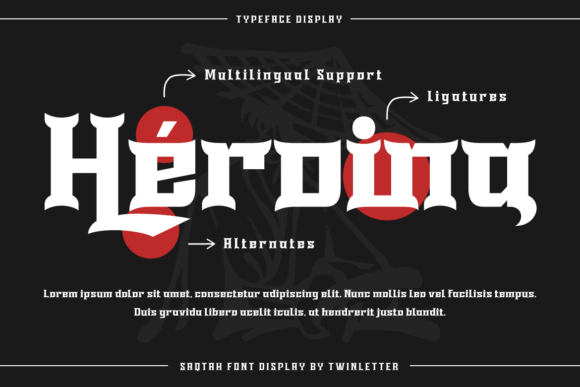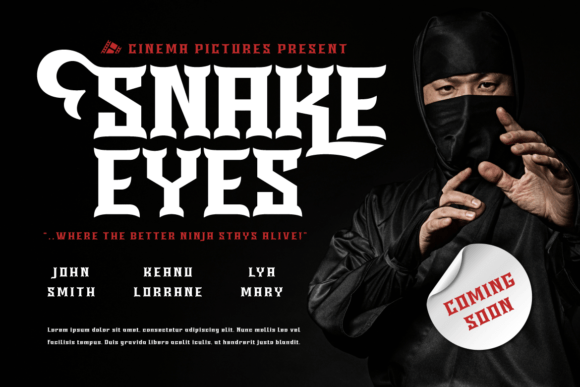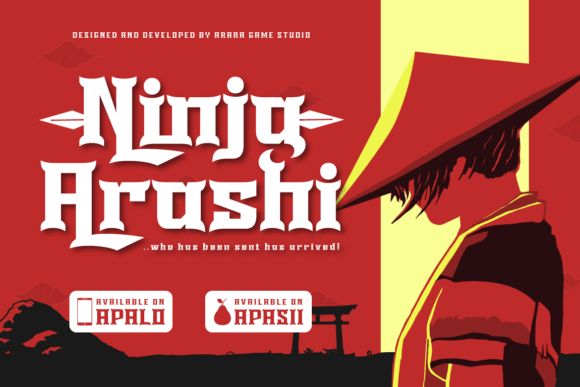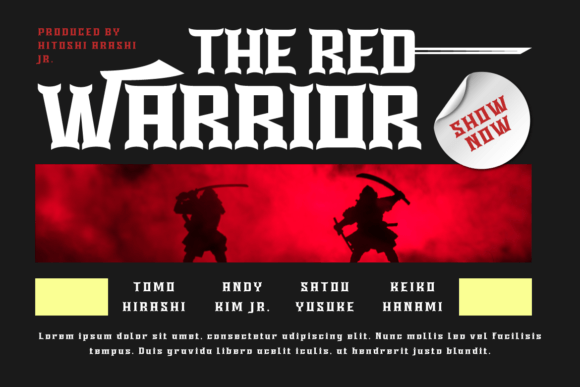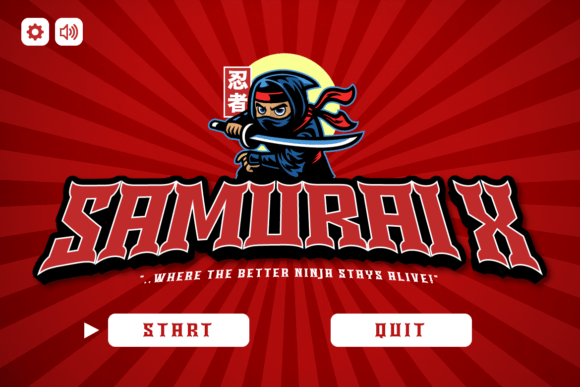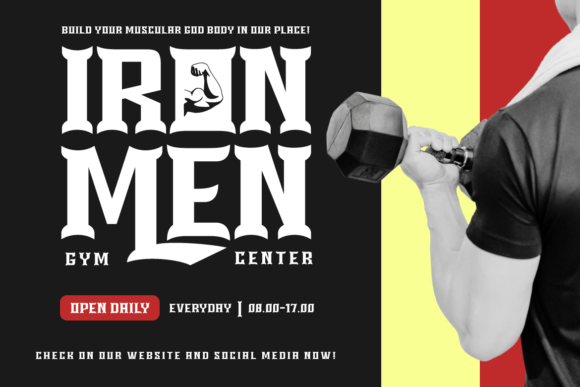
Introduction to Saqtah Font
Welcome to the world of Saqtah.
A display font with a superhero style that will bring strength and courage to your projects Whether youโre working on a film, game, or design with a strong and bold theme, Saqtah is the perfect solution for you.
Key Features of Saqtah Font